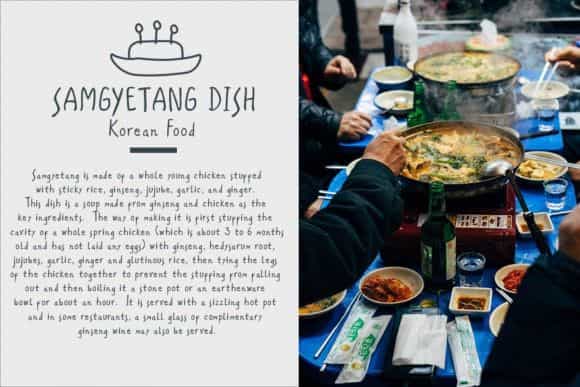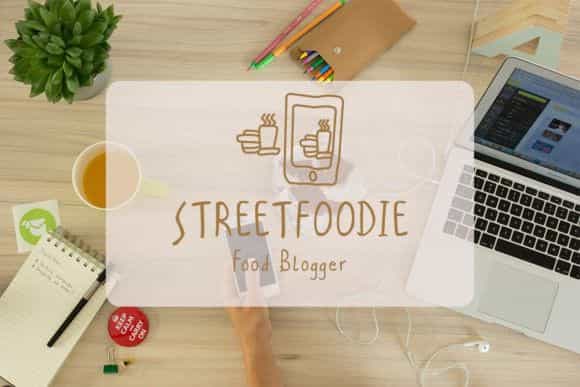
Arshavina is a hand-drawn sans serif font that gives off the feeling of relaxation. It is one of a kind but at the same time it has a classic feel, it is odd yet easy to read and can be used for all kinds of projects like packaging, posters, books and many others.